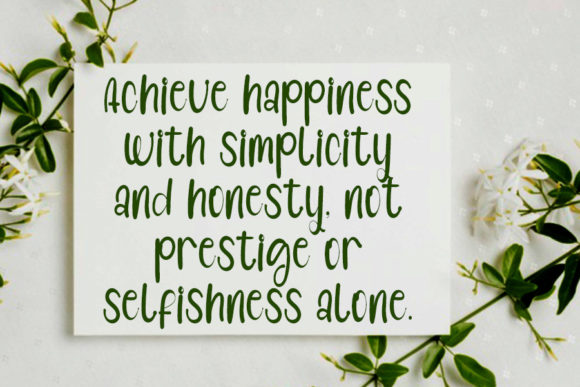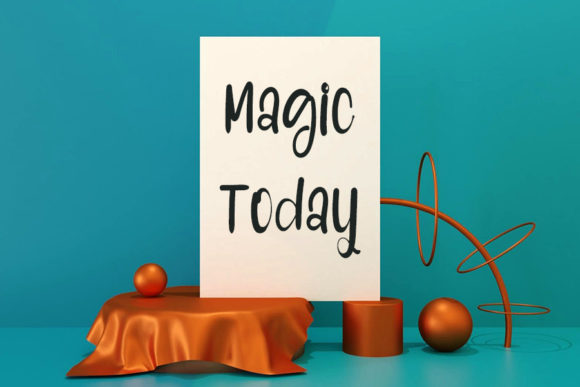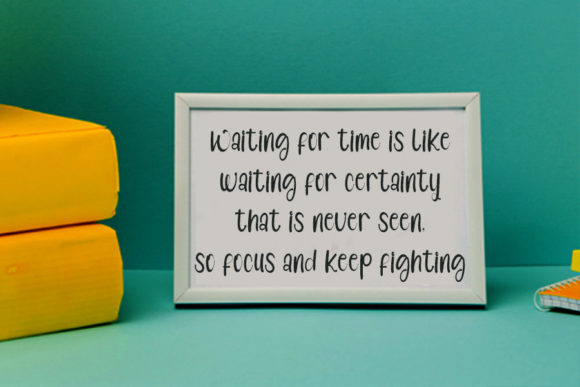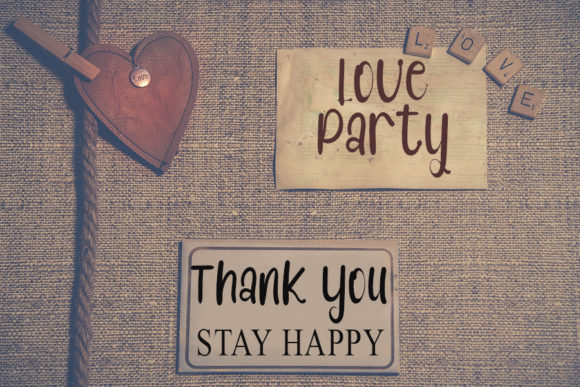
Introduction to Milk Monday Font
Have you ever stared at a blank canvas, waiting for inspiration to strike? It’s a feeling familiar to many designers, and it’s often the spark that sets our creative projects ablaze. For me, that moment came when I stumbled upon the perfect font – the Milk Monday Font. Its playful, handwritten style immediately caught my eye, and I knew I had to learn more.
As a valuable resource for designers, the Milk Monday Font offers a unique blend of natural charm and versatility. Its high-quality design makes it incredibly fitting for a wide range of creative projects, from blog posts to social media graphics. Whether you’re working on a design project with a transparent background or need a font that can stand on its own, the Milk Monday Font is an excellent choice.
Key Features of Milk Monday Font
- High-quality design: This font is designed to provide a professional and clean look for your design resource.
- Transparent background: The font comes with a transparent background, allowing you to easily customize and combine it with other design elements.
- Resolution: The font is designed to be high-resolution, suitable for print and digital use.
- Unique characteristics: The font features a modern and minimalist design, making it ideal for a variety of creative projects.
Honest Review: Milk Monday Font
I recently stumbled upon the Milk Monday Font, and I must say it’s a delightful addition to my design resource collection. This free download has been a game-changer for my creative projects, offering a unique and quirky style that sets my work apart.
What works well is the font’s versatility – it can be used for both casual and formal designs, making it a great choice for a wide range of creative projects. The transparent background option also allows for seamless integration with other design elements, giving me endless possibilities for customization.
Here are some of the key features that I appreciate about the Milk Monday Font:
- High-quality design that’s perfect for modern projects
- Transparent background option for easy integration with other design elements
- Unique and quirky style that adds personality to my designs
However, I do have a few minor complaints. The font can be a bit difficult to read in smaller sizes, and some characters may not be as detailed as I’d like. ⚠️
Getting the Most Out of Milk Monday Font
To get the most out of the Milk Monday Font, experiment with different font sizes, colors, and combinations. You can also use the font in conjunction with other design elements to create a unique and eye-catching visual effect.
Common Use Cases for Milk Monday Font
The Milk Monday Font is perfect for a variety of creative projects, including social media graphics, flyers, posters, and business cards. Its high-quality design and transparent background make it a versatile font for any design need.
Is Milk Monday Font suitable for high-resolution designs?
Yes, Milk Monday Font is designed to be high-quality and suitable for high-resolution designs. The font’s crisp lines and clear typography ensure that it looks great even at large sizes or in high-resolution prints. This makes it an excellent choice for creative projects that require attention to detail.